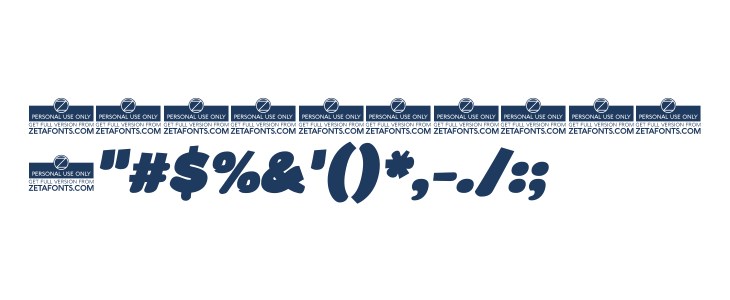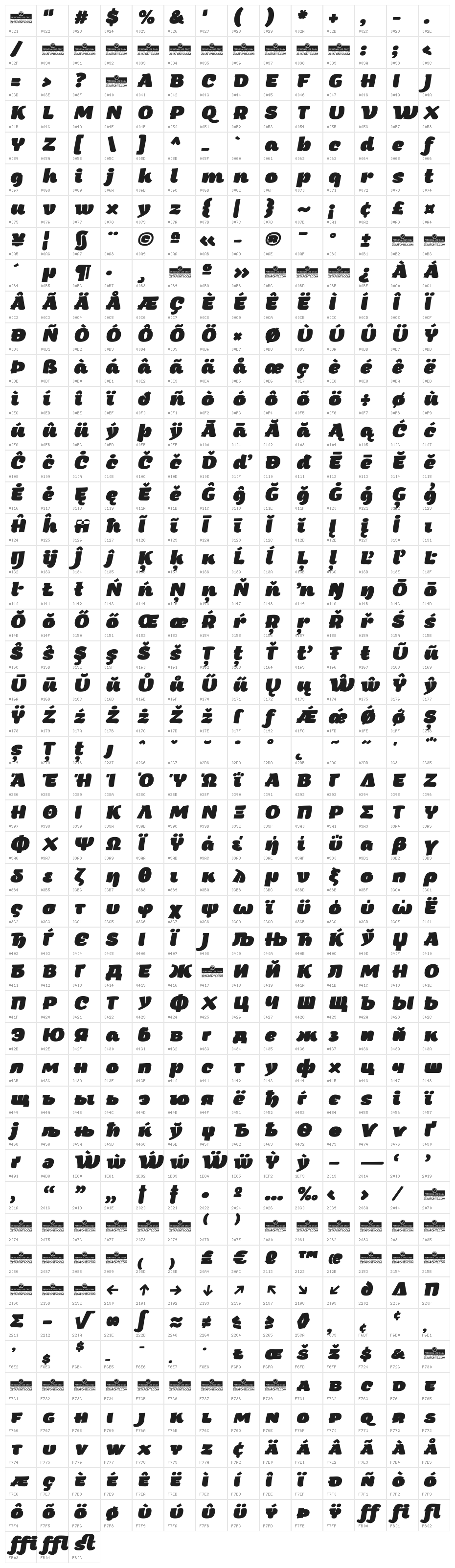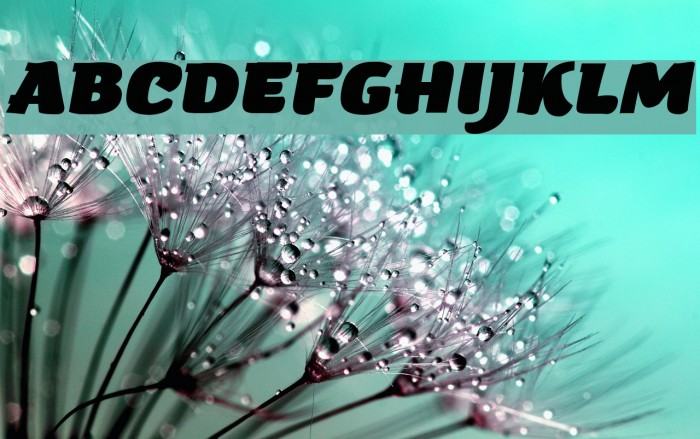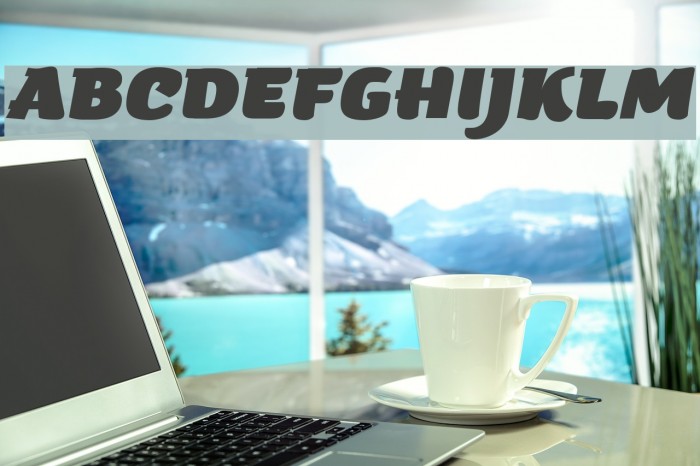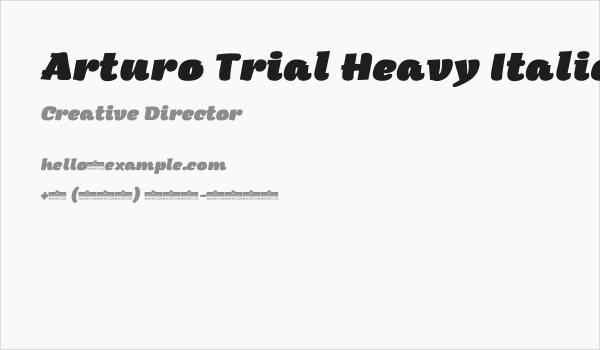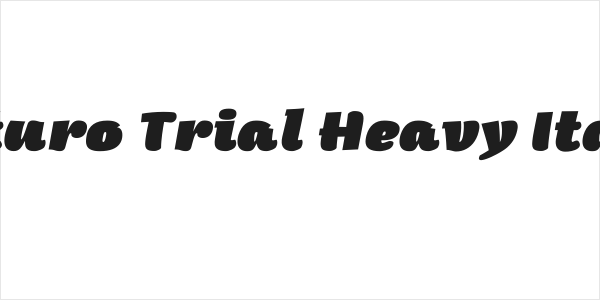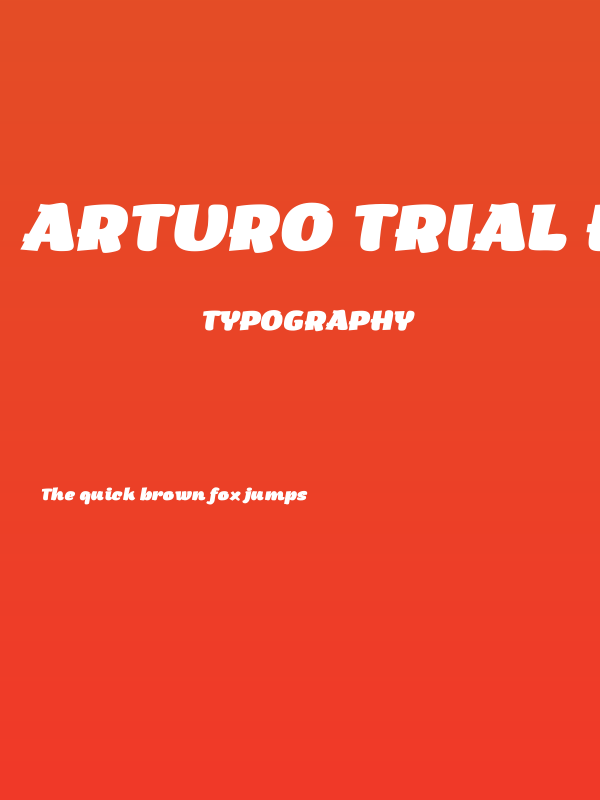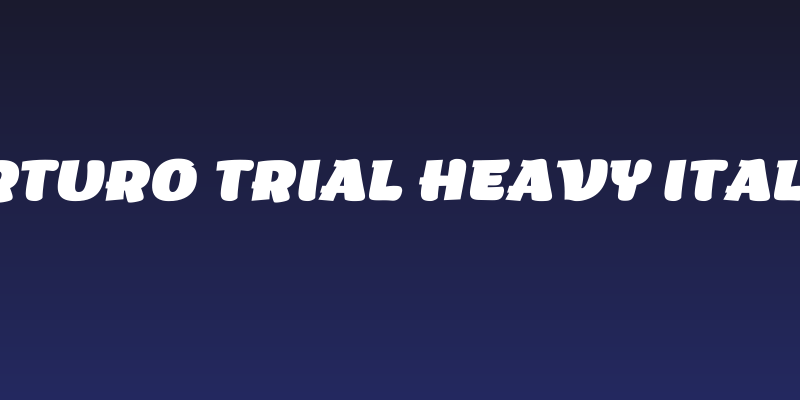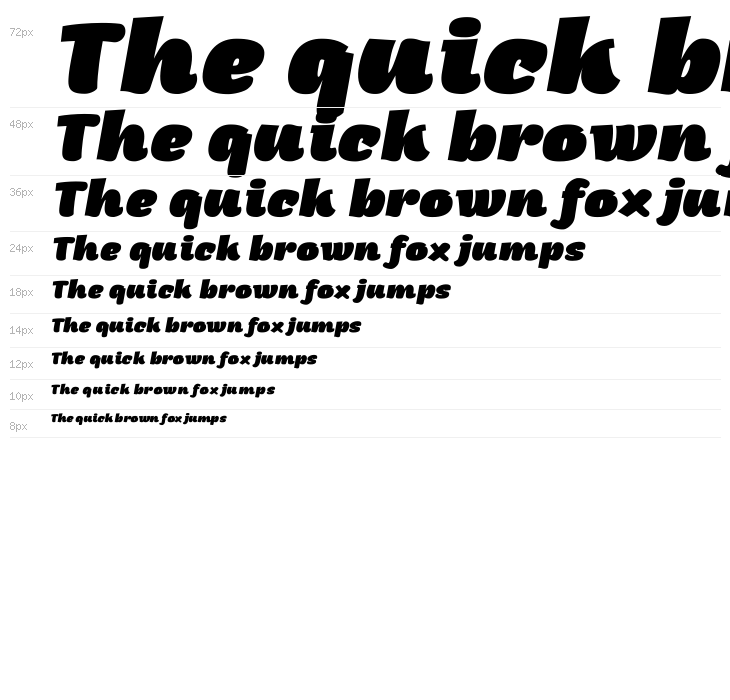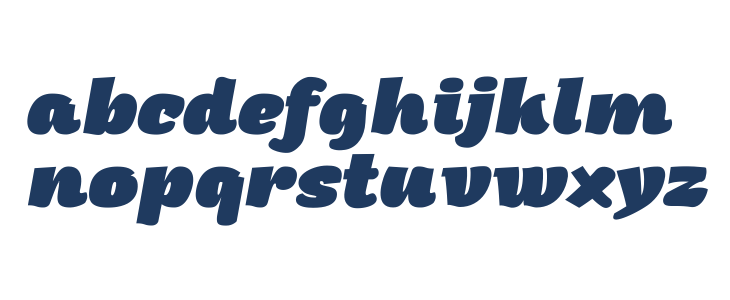
Arturo Trial Heavy Italic Font
Arturo Trial Heavy Italic Description
This font features a bold and dynamic style with a heavy italic slant, giving it a strong and energetic appearance. The characters are thick and robust, with a playful yet assertive design. The uppercase and lowercase letters maintain a consistent weight, creating a harmonious look across the alphabet. The font includes a full set of numerals and a variety of special characters, making it versatile for different design needs. Its bold presence is ideal for making statements, while the italic angle adds a sense of movement and flair.
| Proposed Projects | Ideal for branding, headlines, posters, and any project requiring a strong visual impact. |